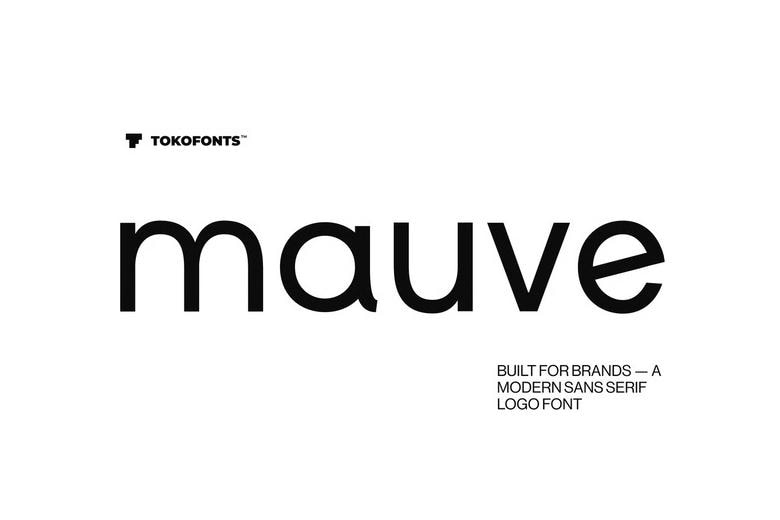
Mauve Font
Mauve is a contemporary stylish logo typeface that balances simplicity and visual impact. It is based on the design of Helvetica, Montserrat, and Futura and has a clean, minimal, and geometric design that is effective in corporate and fashion branding. The letters are designed in elegant proportions to give them a professional, polished and modern appearance.
Mauve font, as a display font, is also applicable in a wide range of creative applications, such as fonts kids projects, which demand a friendly but modern touch. Its clean lines and smoothness contribute to building brand identity and providing a timeless and stylish impression in various visual applications.
Mauve Sans Serif Font